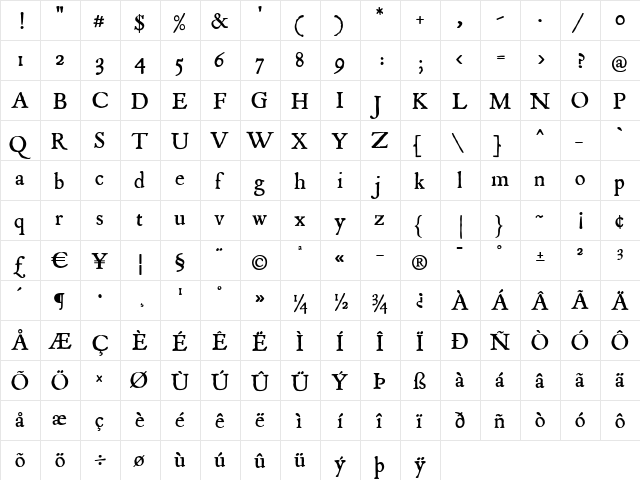
Mayflower Regular
Design Context for Mayflower Typeface
Mayflower offers clean, dependable letterforms without strong stylistic allegiance, making it a practical choice for designers who need flexibility.